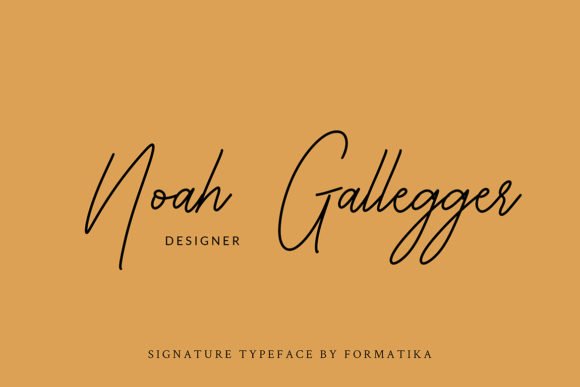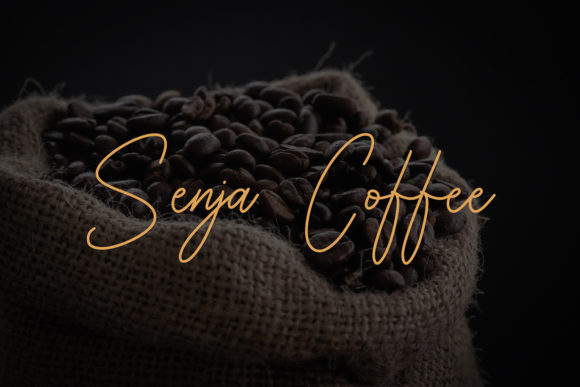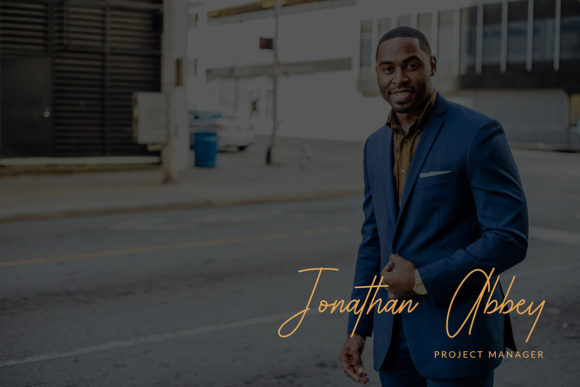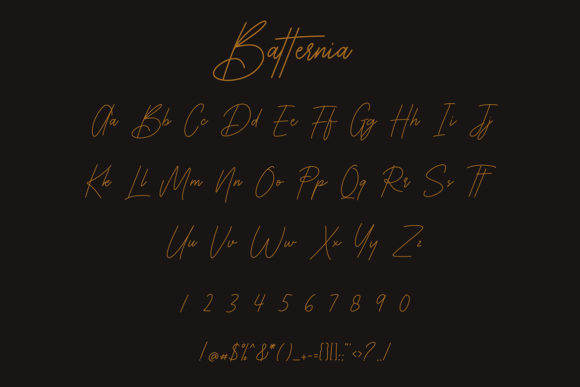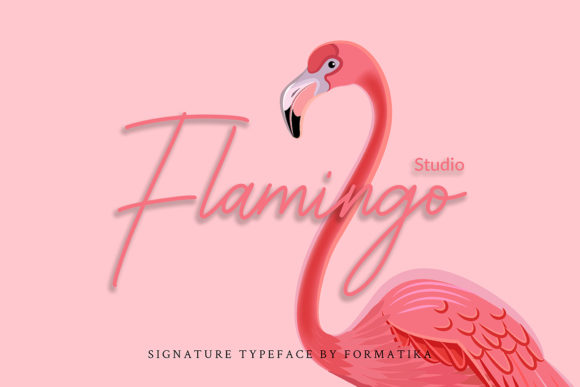
Batternia Font: The Perfect Handwritten Typeface for Your Creative Projects
Are you looking for a unique and exciting handwritten font to add a personal touch to your creative projects? Look no further than Batternia Font! This stunning typeface is designed to bring a signature style to your designs, making it perfect for a variety of applications, from wedding invitations and stationery to social media posts and greeting cards.
What Makes Batternia Font So Special?
Batternia Font is an authentic and charming handwritten typeface that exudes a sense of elegance and sophistication. Its distinctive style is sure to capture the attention of your audience and leave a lasting impression. With Batternia Font, you can add a touch of personality to your designs and make them stand out from the crowd.
Perfect for Wedding Invitations and Stationery
Wedding invitations and stationery are a great way to showcase the beauty of Batternia Font. Its elegant and cursive style makes it perfect for formal and informal wedding invitations, save-the-date cards, and other wedding-related stationery. You can use it to create gorgeous and eye-catching designs that will set the tone for the big day.
Eye-Catching Social Media Posts
Batternia Font is not just limited to print designs. You can also use it to create stunning social media posts that will grab the attention of your followers. Whether you’re promoting a product, sharing a quote, or simply posting a fun message, Batternia Font is sure to make your posts stand out.
Cute Greeting Cards and More
Batternia Font is also perfect for creating cute and personalized greeting cards for special occasions such as birthdays, holidays, and anniversaries. You can use it to create a variety of designs, from simple and elegant to colorful and playful.
Why Designers and Crafters Love Batternia Font
Designers and crafters love Batternia Font for its versatility and ease of use. It’s a font that’s easy to read and works well in a variety of contexts, from digital designs to print materials. Additionally, its unique style makes it a great way to add a personal touch to your designs and stand out from the crowd.
Key Features of Batternia Font
- Exciting handwritten typeface with signature style
- Authentic and charming feel
- Perfect for wedding invitations, stationery, social media posts, and greeting cards
- Elegant and cursive style
- Easy to read and versatile
Get Ready to Fall in Love with Batternia Font
If you’re looking for a font that will add a touch of elegance and sophistication to your designs, look no further than Batternia Font. With its exciting handwritten style and authentic feel, it’s the perfect choice for designers and crafters who want to create stunning and unique designs. So why wait? Fall in love with Batternia Font today and start creating gorgeous designs that will leave a lasting impression!